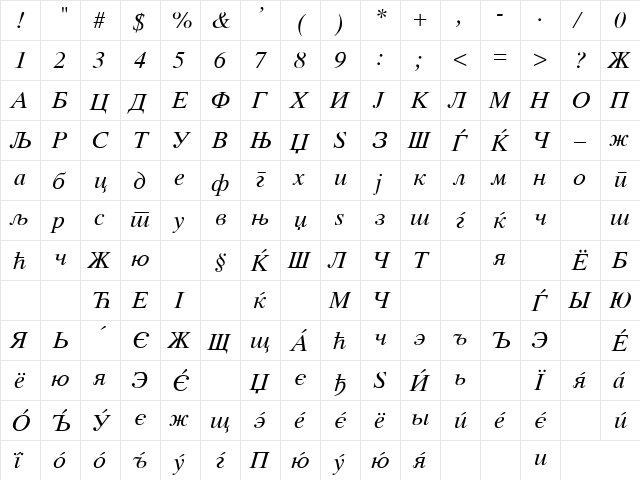
MAC C Times Italic
Design Context for MAC C Times Typeface
MAC C Times is a composed and adaptable typeface that performs quietly and consistently across a wide range of design contexts. Its italic angle brings a sense of urgency and motion to the letterforms.
Pro Tip: Use MAC C Times for emphasis, pull quotes, and subheadings where its slanted energy can add rhythm to the layout.